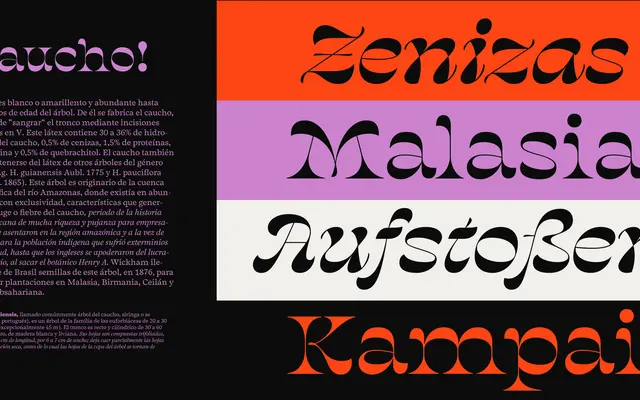
Salvaje Display
Typozon · Cristian Vargas · 2018
A two-style display family by Cristian Vargas, inspired by the elaborate plumage and courtship rituals of Birds of Paradise, recognised by the Type Directors Club and Typographica in 2018.
Designed by Cristian Vargas at Typozon, Salvaje Display draws its visual logic from the Birds of Paradise, translating those creatures' extreme ornamentation into letterforms with strong presence and a rich set of OpenType alternates. The family comprises Regular and Italic, with alternate glyphs for A, E, y, Y and the ampersand alongside discretionary ligatures and case-sensitive forms. Originally released in 2018 and updated to v2.0 in 2025, it has been applied to consumer product identities, album artwork, book covers and editorial projects.
A boldly expressive display typeface with distinctive letterform alternates and a strong visual character suited to headlines and large-scale applications; the italic adds further personality, placing it firmly in the display category.